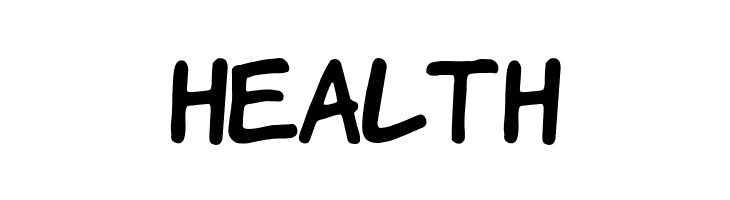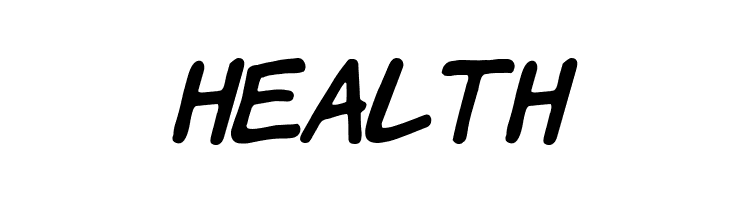
• KomiK9
A bold, playful font with a hand-drawn, comic book style.
• KomiK9 Italic
A bold, italicized handwritten font with a playful and dynamic style.